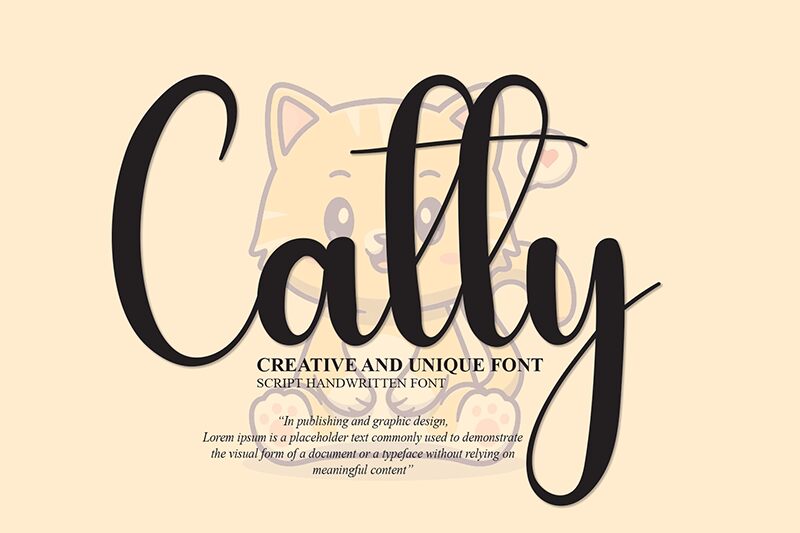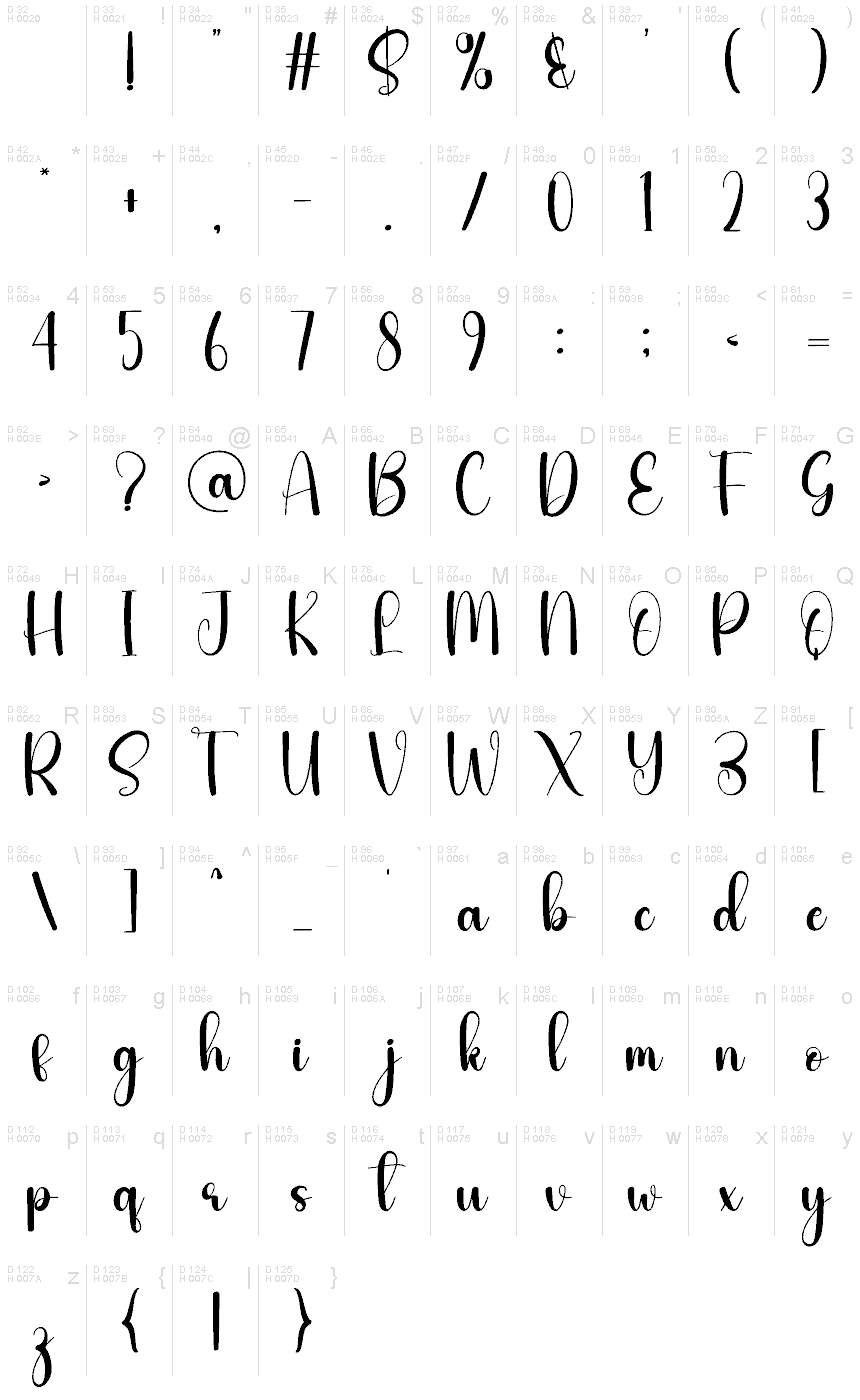
Catty
Catty font by Andi Moz, a free handwritten font with flourished and expressive details. It holds modern script characteristics, elegant in its flow, and casual yet sophisticated in its display. The fonts’ subtle appearance catches the eyes in an intriguing manner whether used for displaying titles or written blocks of text.
Use Catty for package designs, branding ideas, logo design ideas, invitation card designs, greeting cards, book cover designs; all especially those targeting children. Posters and social media page banners will also do well when this typeface is used.